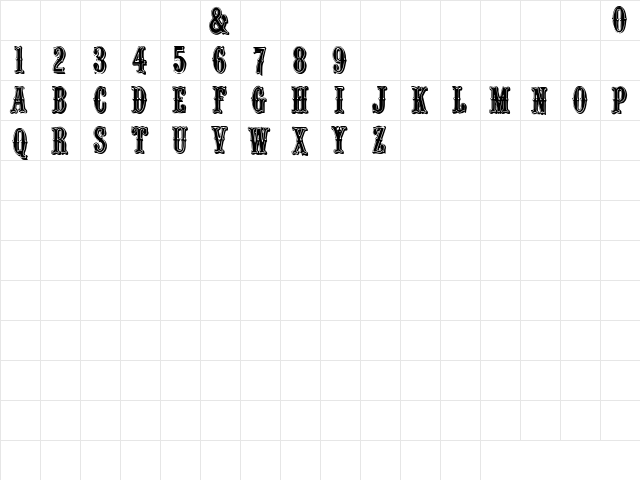
Quentin Normal
Design Context for Quentin Typeface
Quentin is a composed and adaptable typeface that performs quietly and consistently across a wide range of design contexts.